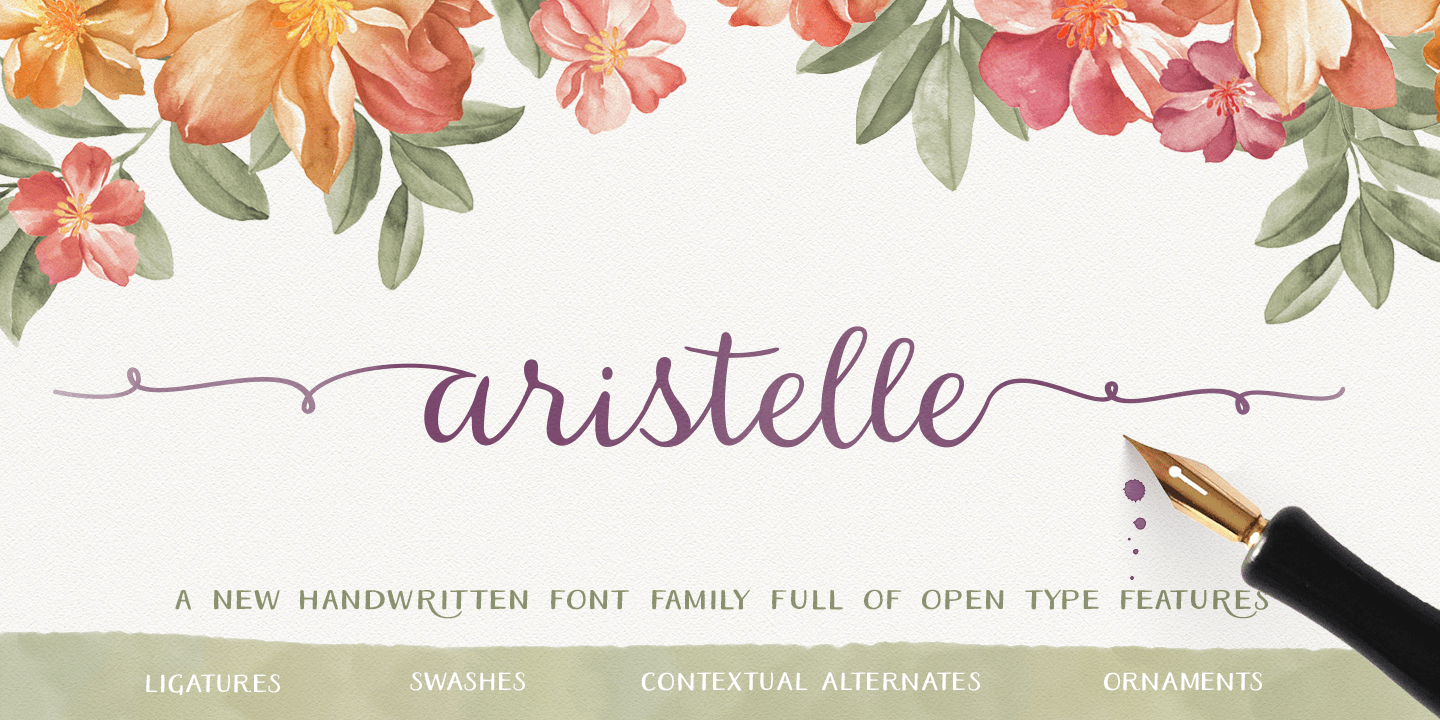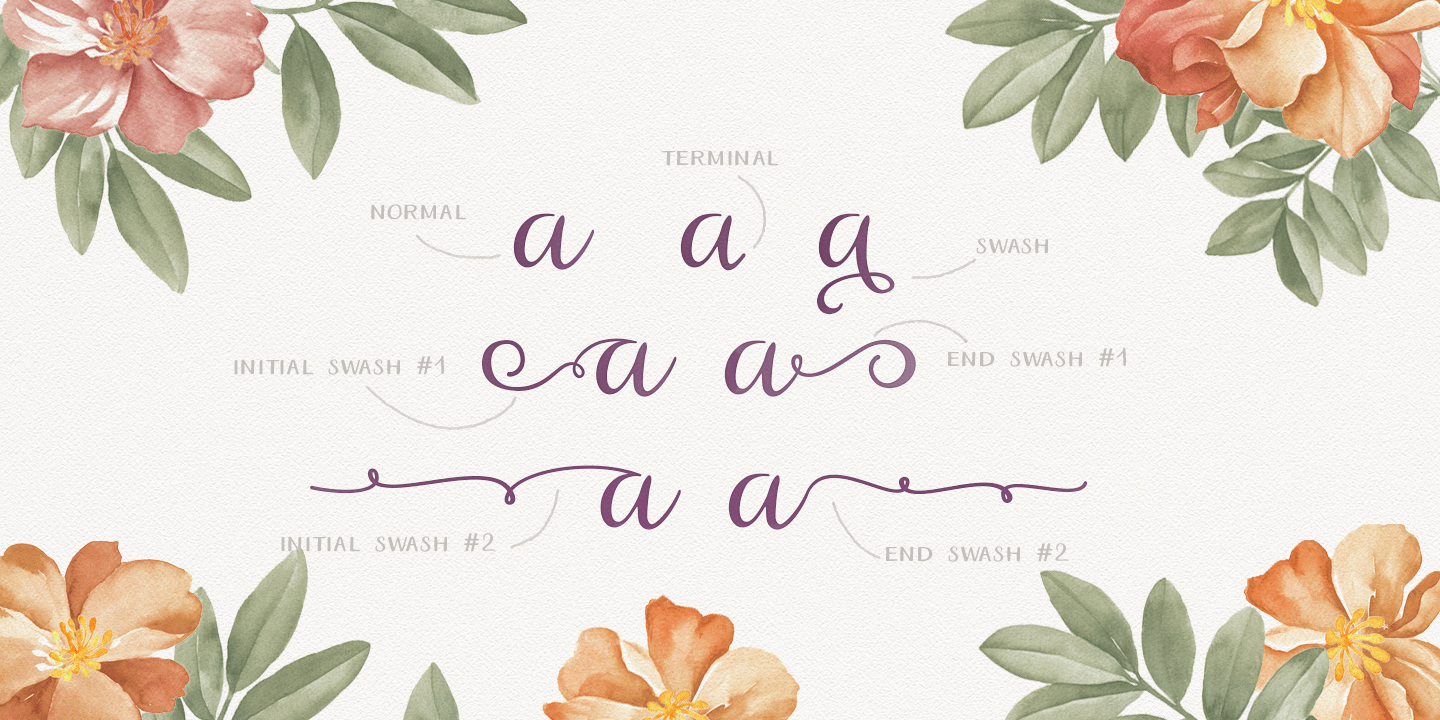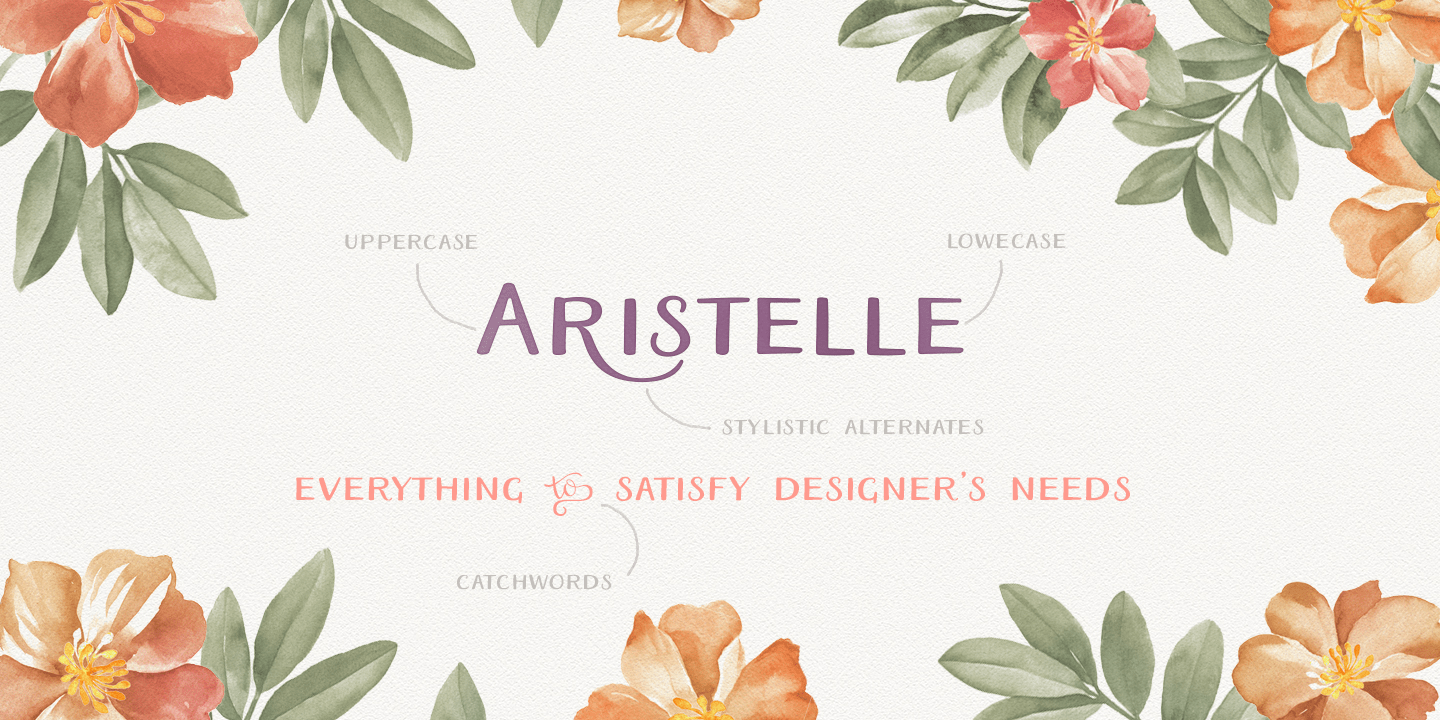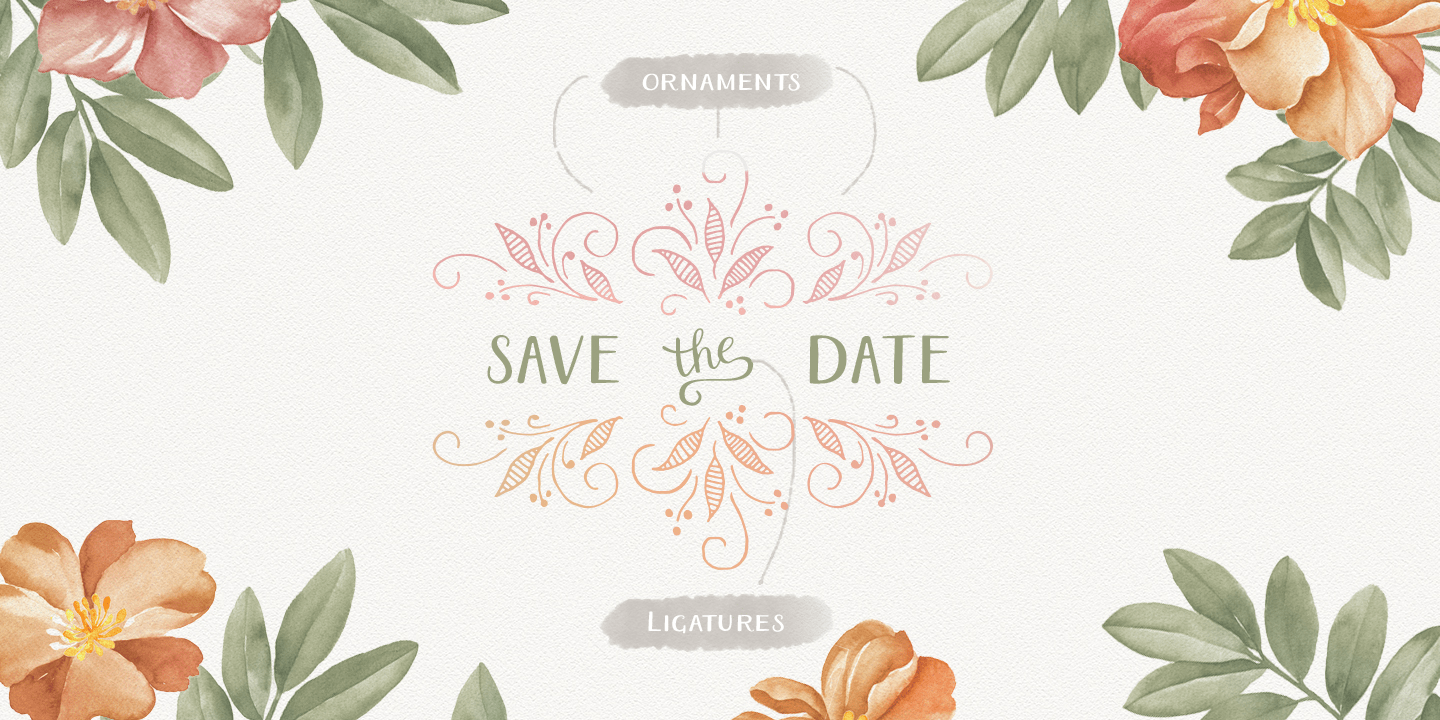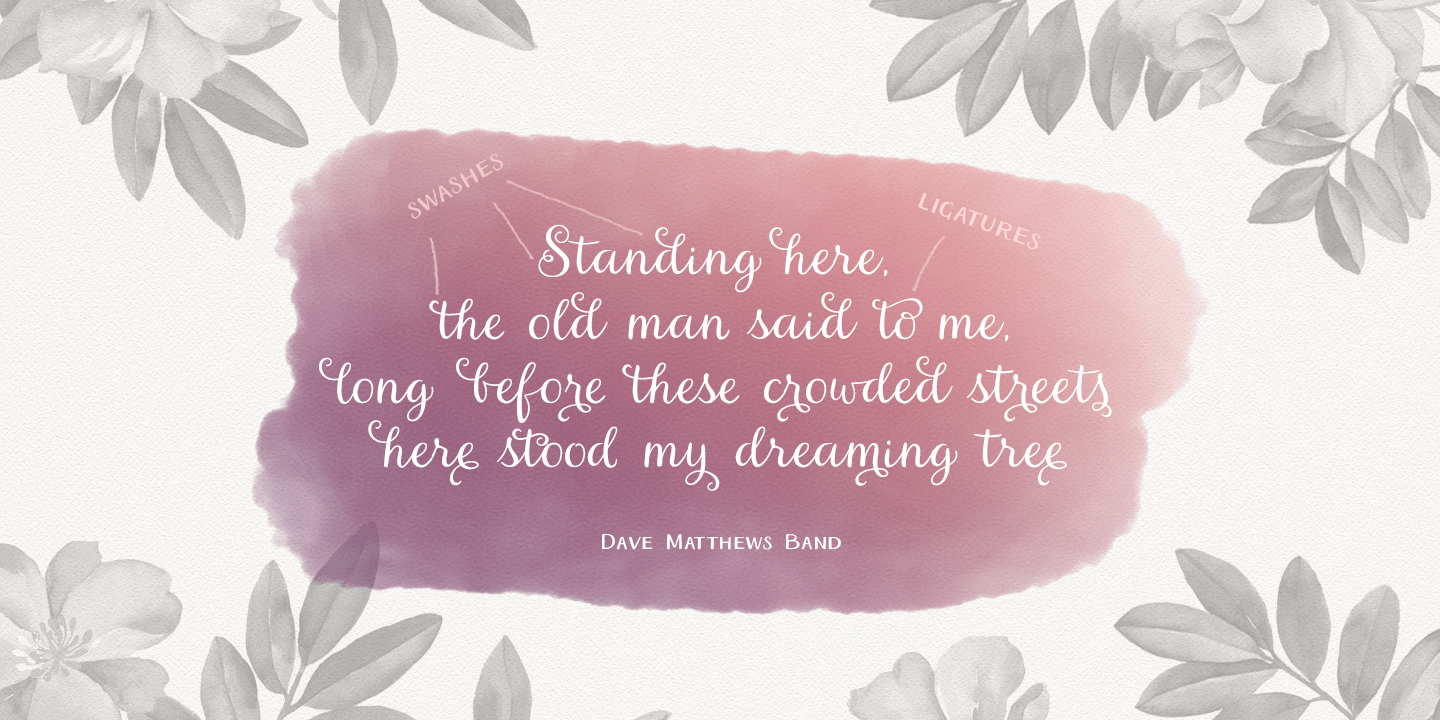
Aristelle
Aristelle Family is a beautiful, hand-lettered script that was created using Leonardt III EF nib. Aristelle Script is full of OpenType features such as initial and terminal swashes, ligatures, and ornaments and is best used in an OpenType-aware software.
Aristelle Sans and Sans Condensed are well additions to the Aristelle Script and all three fonts shall help you create organic, stylish, and full-of-character designs.